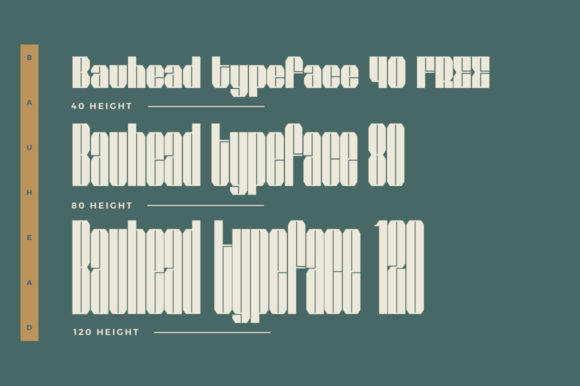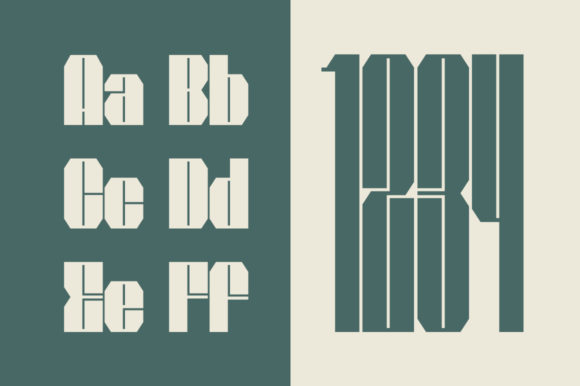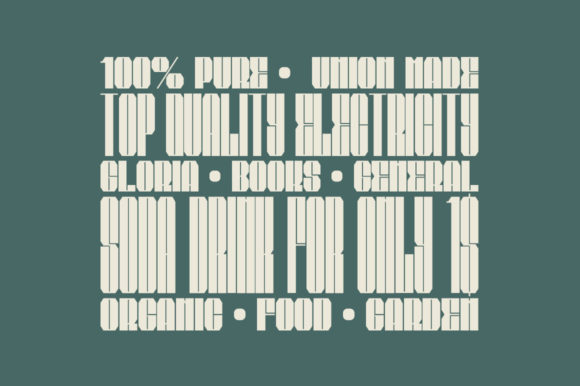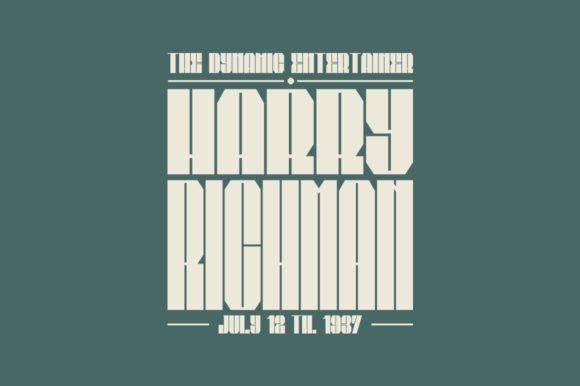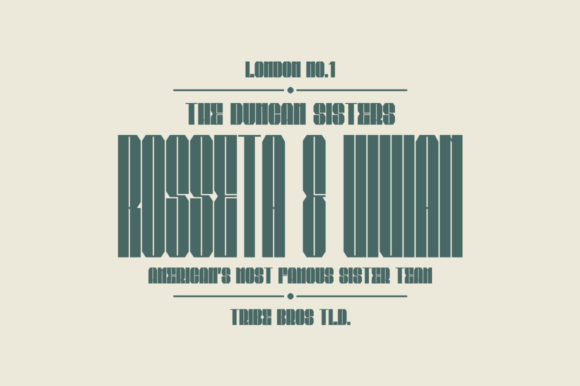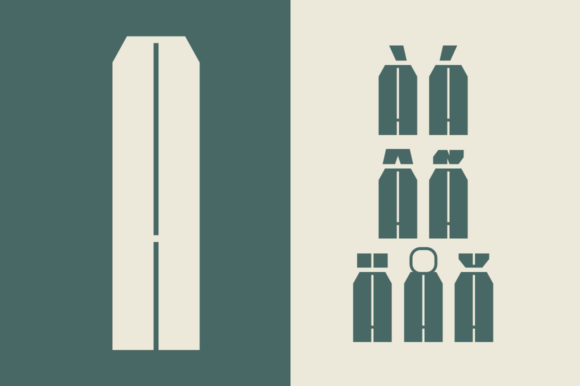
The Perfect Typography Companion for Designers
Have you ever been working on a design project, and the right font just eludes you? You’ve tried every sans serif font in sight, but nothing seems to capture the essence of your vision. That’s when I discovered the Bauhead Font – a game-changer for designers looking to elevate their work.
Bauhead Font is a timeless, modern sans serif font that exudes simplicity and sophistication. Its clean lines and elegant feel make it the perfect addition to any design project, from branding to digital interfaces. Whether you’re a seasoned designer or just starting out, this versatile font is sure to inspire your creativity and bring your designs to life.
What sets Bauhead Font apart is its ability to adapt to any design style, making it a valuable asset for designers who want to stay ahead of the curve. With its unique charm and modern appeal, this font is sure to become your go-to companion for all your design needs.
Bauhaus Font Key Features
- Font Family: Bauhaus Font is a sans-serif font family, known for its geometric and modern design.
- Character Set: Supports a wide range of languages, including Latin, Cyrillic, and Greek alphabets, with over 700 characters.
- Resolution: Optimized for use at high resolutions, making it suitable for print and digital applications.
- Unique Characteristics: Bauhaus Font features a distinctive geometric design, clean lines, and a modern aesthetic, making it ideal for minimalist and contemporary designs.
Bauhead Font Review
I recently had the chance to work with the Bauhead font, and I must say it’s a solid addition to any designer’s toolkit. ✨ Here are a few things that I think work well:
- Unique aesthetic: Bauhead has a distinctive look that sets it apart from more generic fonts.
- High legibility: The font is easy to read, even at smaller sizes.
- Good for headings: Bauhead’s bold lines make it perfect for use in headings and titles.
However, like any font, Bauhead has its limitations. ⚠️ Here are a few things to keep in mind:
- Not suitable for body text: While Bauhead is great for headings, it’s not ideal for large blocks of text.
- Limited font sizes: Some font sizes may look a bit rough or distorted, especially at larger sizes.
- May not be suitable for all projects: Bauhead’s unique look may not be the right fit for every project or design style.
Overall, I think Bauhead is a great font for designers who want to add some visual interest to their work. It’s a bit of a niche font, but it’s definitely worth considering for the right project.
Bauhead Font: A Practical Application Guide
Using Bauhead in PowerPoint/Word
To use Bauhead in PowerPoint, create a new presentation and select the Bauhead font from the font library. In Microsoft Word, you can use Bauhead font by creating a new document and selecting the font from the font menu. Bauhead is perfect for creating professional-looking presentations, reports, and documents.
Tips for Getting the Most Out of Bauhead
For best results, pair Bauhead with clean and simple designs. Experiment with different font sizes, colors, and combinations to create visually appealing designs. Bauhead is also great for creating custom headings, titles, and subtitles.
Bauhead is commonly used in modern branding, editorial content, and digital marketing materials. Its clean and minimalist design makes it perfect for creating professional-looking designs that are easy to read and understand.
The Bauhead Font supports a wide range of languages, including Latin, Cyrillic, Greek, and many others. The font includes a comprehensive character set, including Latin letters, numbers, punctuation, and special characters. It also includes a range of diacritical marks and symbols. You can check the font’s character map for a detailed list of supported characters and languages.